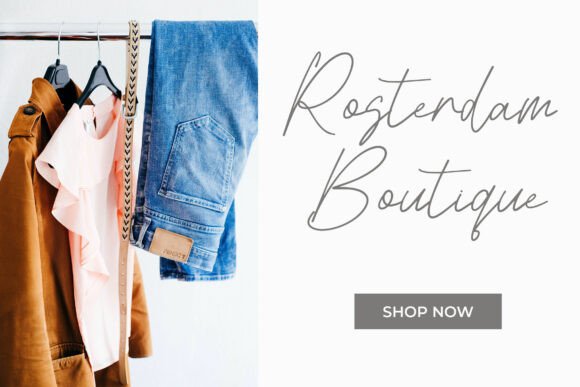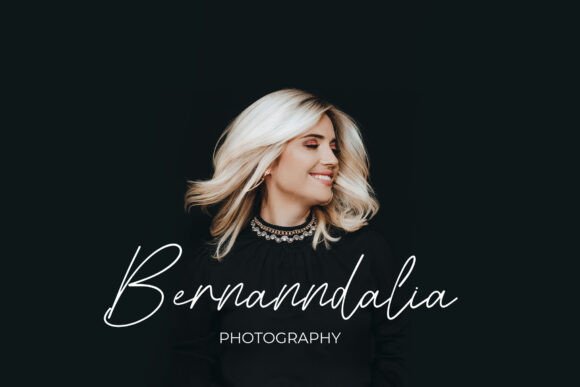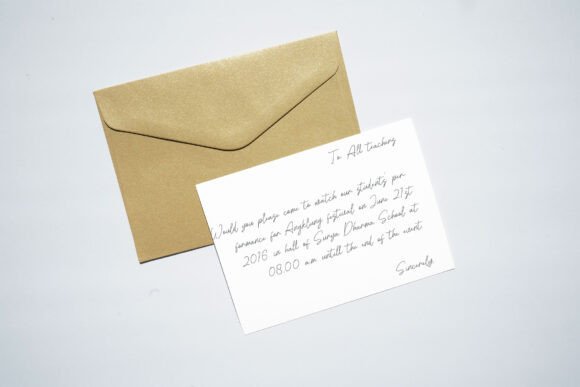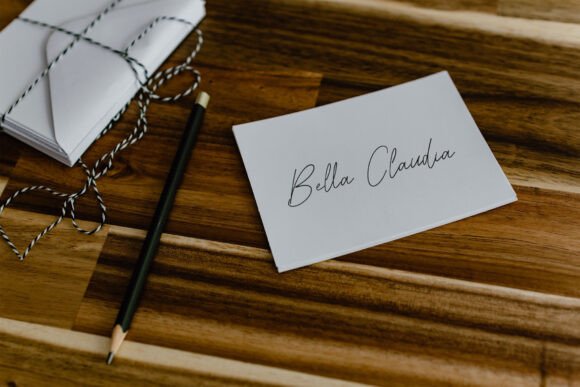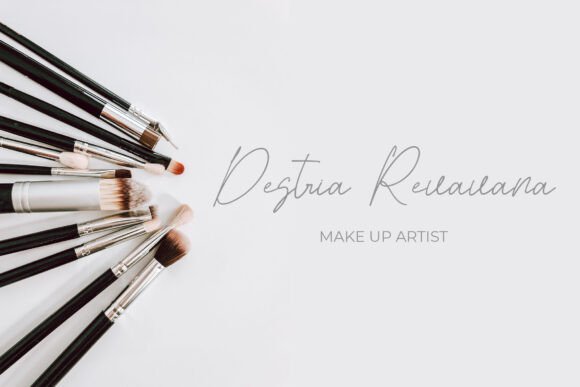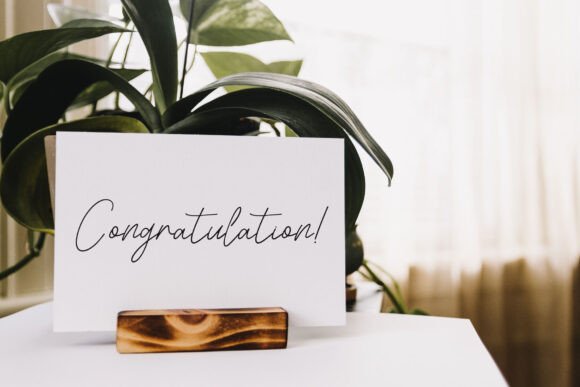
Introduction to Marciello Font
Remember the moment when you stumbled upon that perfect design resource? The one that made your project come alive and gave it that extra oomph? For designers, finding the right font can be a game-changer, and that’s exactly what the Marciello Font does.
With its smooth monoline handwriting style and elegant script, Marciello Font brings a touch of sophistication to any creative project. Whether you’re working on a logo, branding, invitation, or anything in between, this high-quality font is sure to elevate your design. Its clean and graceful lines make it a versatile design resource that’s perfect for a wide range of applications.
Key Features of Marciello Font
- High-quality font design suitable for creative projects and designs requiring a professional look.
- Unique characteristics include elegant and modern letterforms, making it perfect for a wide range of design applications.
Honest Review: Marciello Font
I recently stumbled upon the Marciello Font and was immediately drawn to its elegant, sophisticated design. As a designer, I’m always on the lookout for high-quality design resources that can elevate my creative projects.
Here are some things that I think work well with the Marciello Font:
- ✨ High-quality vector graphics that render smoothly at any size.
- ✨ A wide range of styles and weights to choose from, making it versatile for various design projects.
- ⚠️ Limited font combinations and pairing options, which can make it challenging to create a cohesive design.
Tips for Getting the Most Out of Marciello Font
To get the most out of Marciello Font, use it with a transparent background to create a clean and minimalist design. Experiment with different font sizes and styles to add visual interest to your project.
Common Use Cases for Marciello Font
The Marciello Font is ideal for creative projects that require a high-quality, elegant font. It’s perfect for logos, business cards, and other design elements where a sophisticated look is desired.
Alternatives to Marciello Font
Aleo is a high-quality, elegant script font perfect for creative projects requiring a touch of sophistication. It’s ideal for use in wedding invitations, magazine headings, or any design that needs a luxurious feel.
Compared to Marciello Font, Aleo has a more refined and delicate appearance, making it suitable for designs that need a bit of subtlety.
Lato is a modern sans-serif font ideal for use in a variety of design projects, including logos, headings, and body text. Its clean and simple design makes it perfect for websites, applications, and other digital design resources.
Lato is a great alternative to Marciello Font for designs that require a clean and minimal aesthetic.
Montserrat is a geometric sans-serif font designed for use in urban environments. Its clean lines and geometric shapes make it perfect for designs that need to convey a sense of modernity and sophistication.